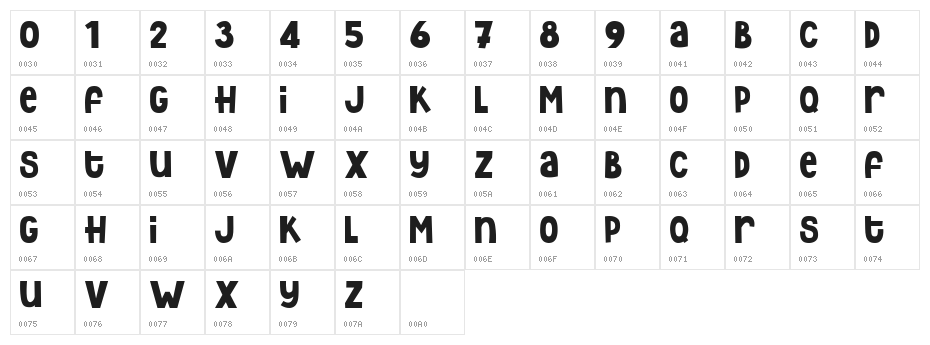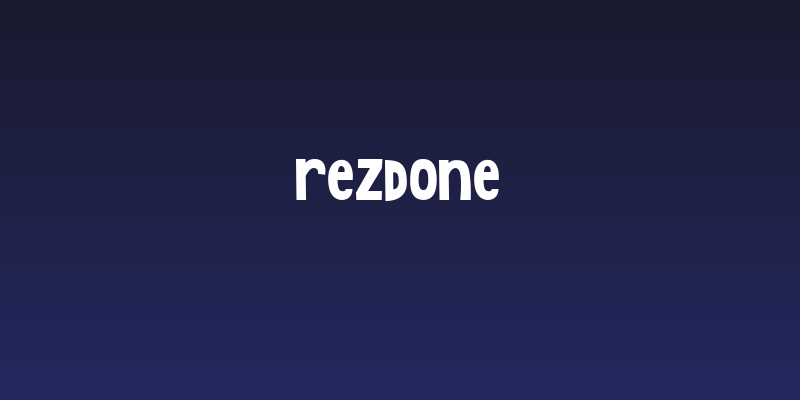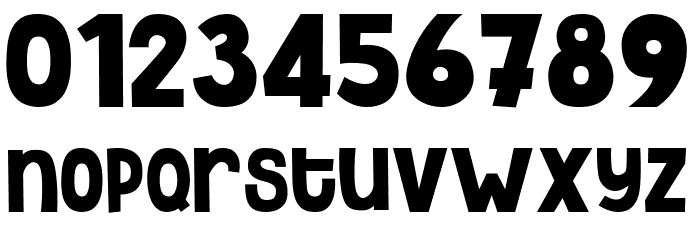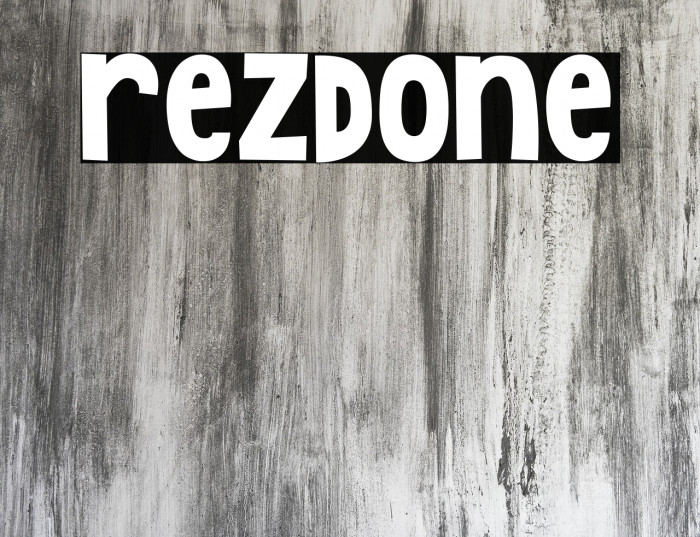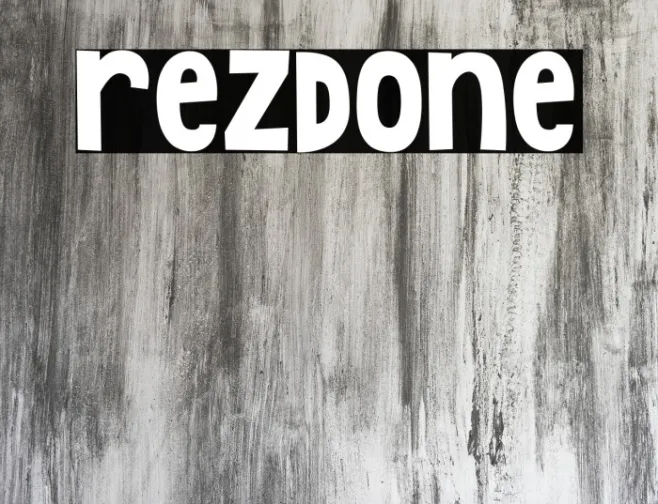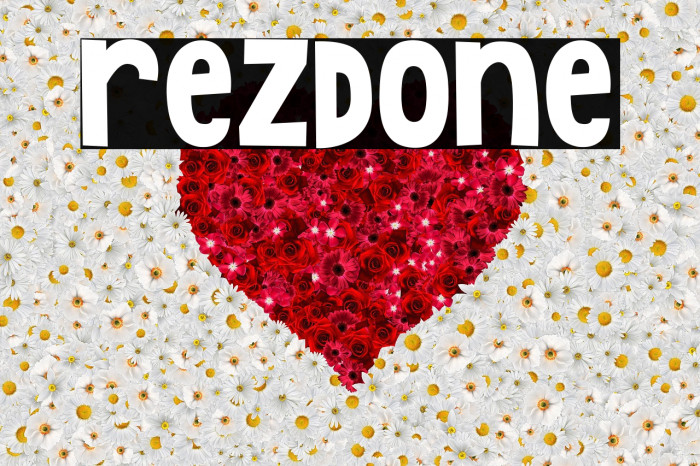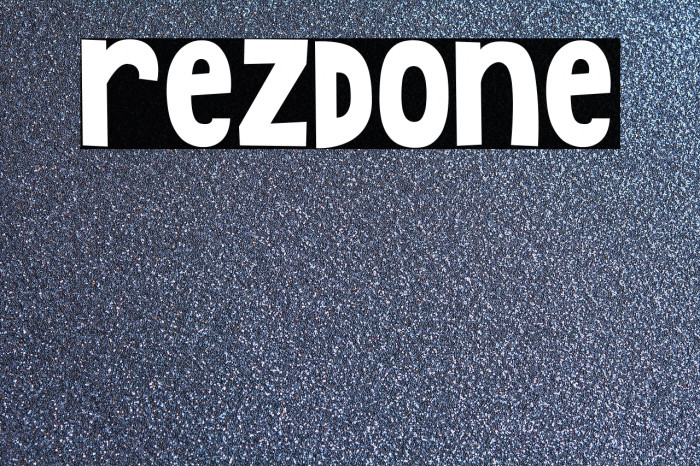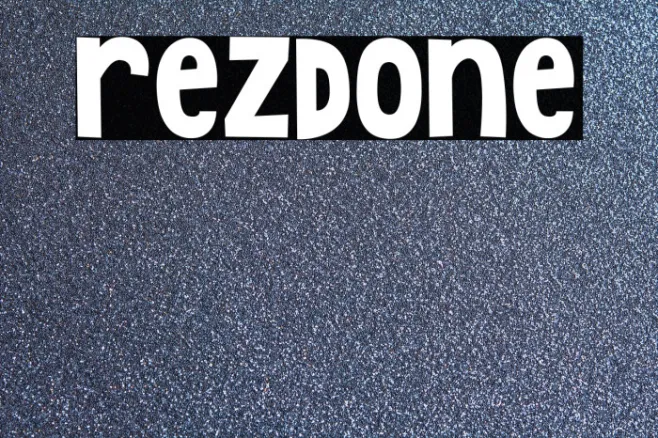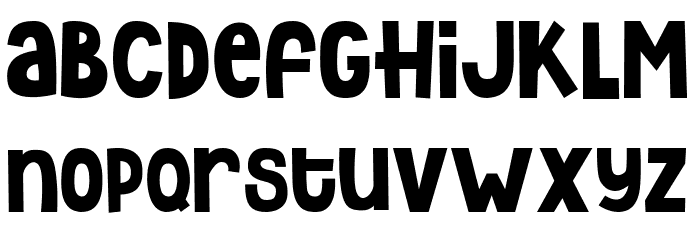
Rezdone Font
Rezdone Description
This font features a bold and playful design, characterized by its thick, rounded strokes and whimsical curves. The uppercase and lowercase letters maintain a consistent width, creating a cohesive look. The numbers are equally bold, with a slight slant that adds to the playful nature. The overall appearance is friendly and approachable, making it suitable for a variety of creative projects. The spacing between characters is normal, ensuring readability while maintaining its unique style.
| Overall Style | Playful, Modern |
| Proposed Projects | Ideal for children's books, playful branding, posters, and creative invitations. |